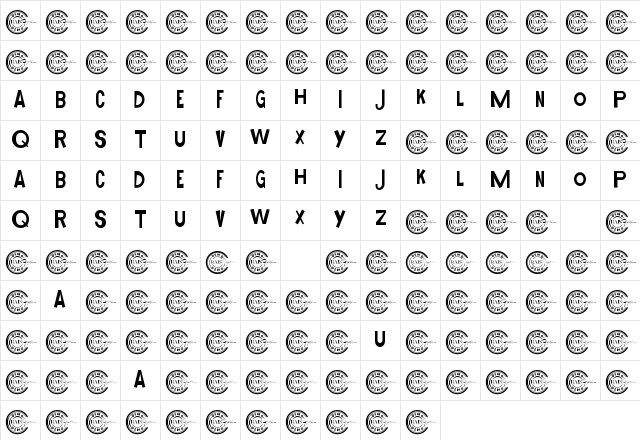
Abrade Rock Demo is a composed and adaptable typeface that performs quietly and consistently across a wide range of design contexts.
Pro Tip: Use Abrade Rock Demo in both headline and body roles to test its range before committing to a single application.